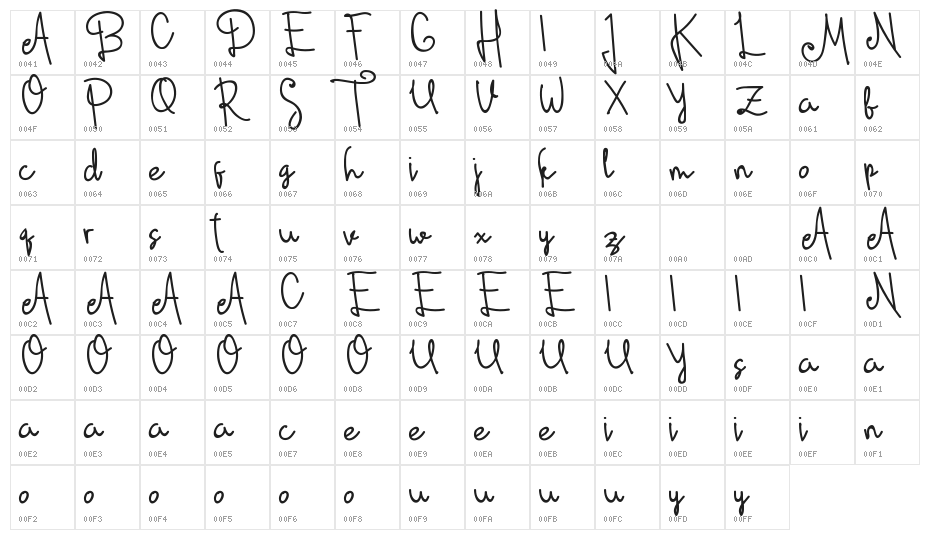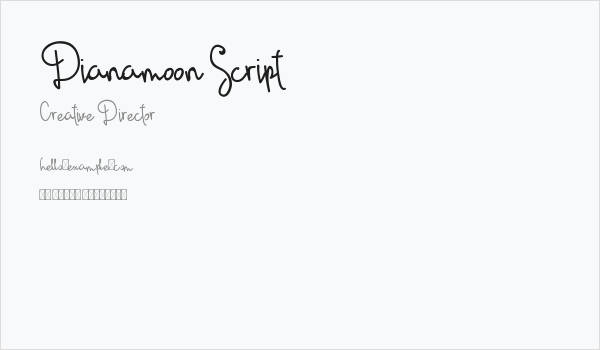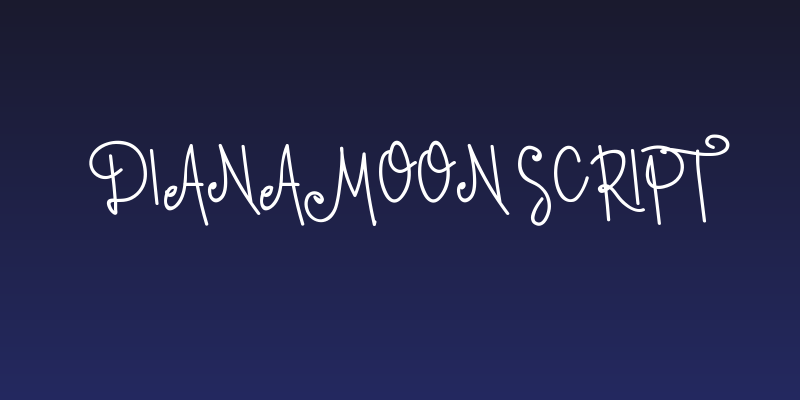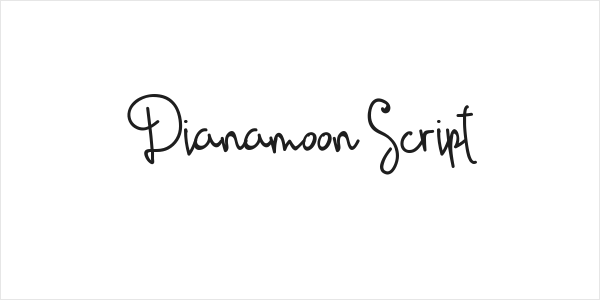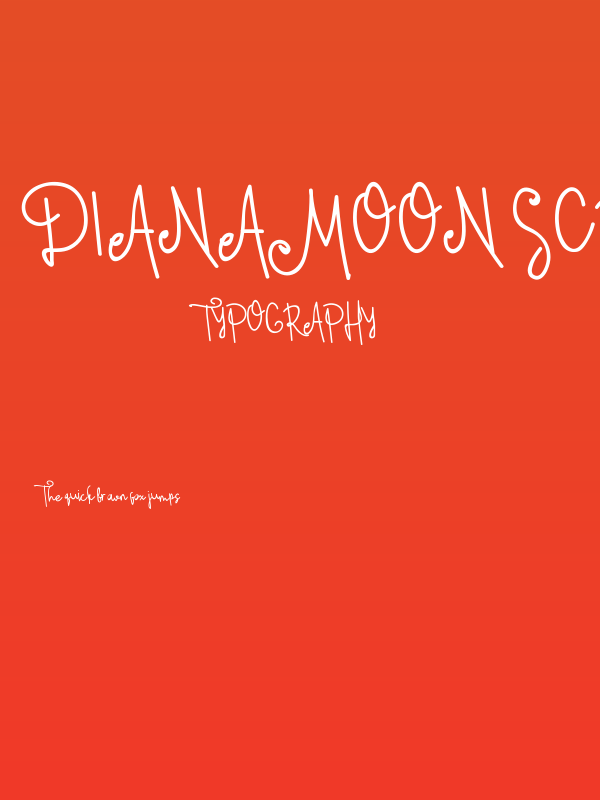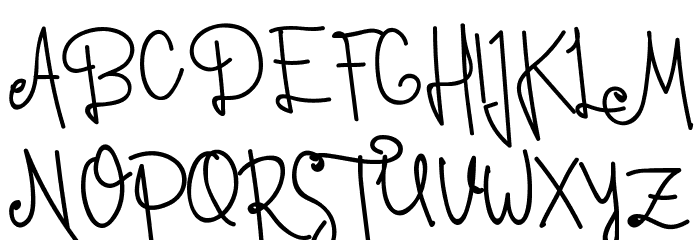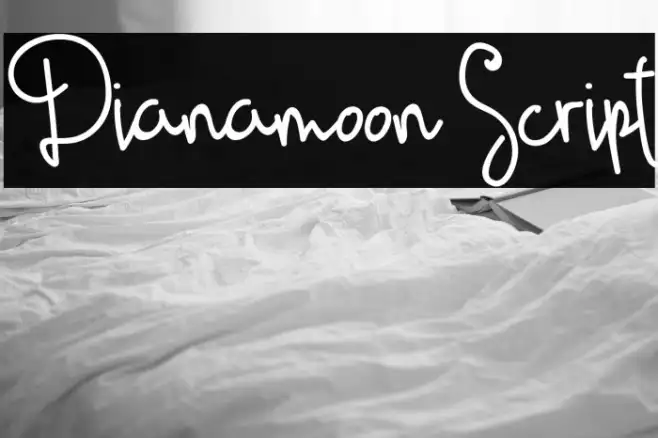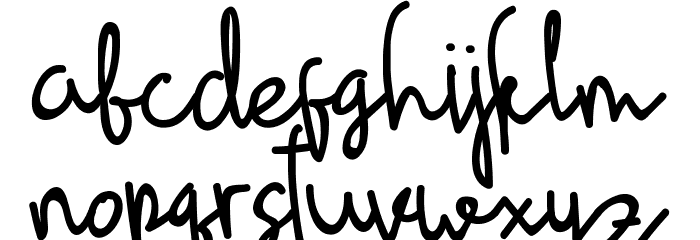
Dianamoon Script Font
Dianamoon Script Description
This font features a whimsical and playful script style, characterized by its flowing, interconnected letters that mimic the fluidity of handwriting. The uppercase letters are tall and slender, with unique loops and curves that add a touch of elegance and creativity. The lowercase letters maintain a consistent style, with smooth transitions and rounded edges that enhance readability. The font's overall appearance is lively and dynamic, making it suitable for projects that require a personal and artistic touch. The characters are evenly spaced, ensuring clarity and balance across different text sizes.